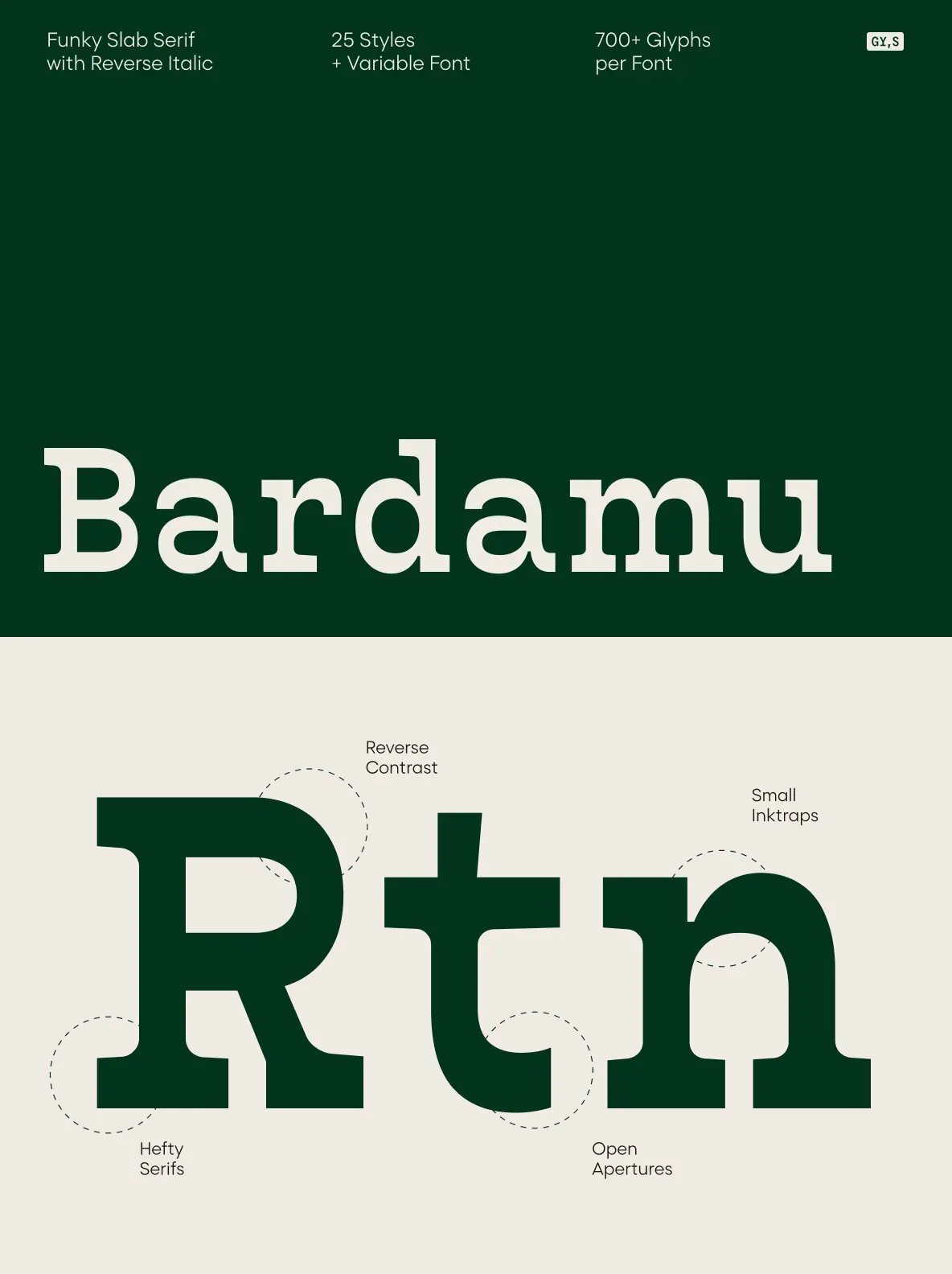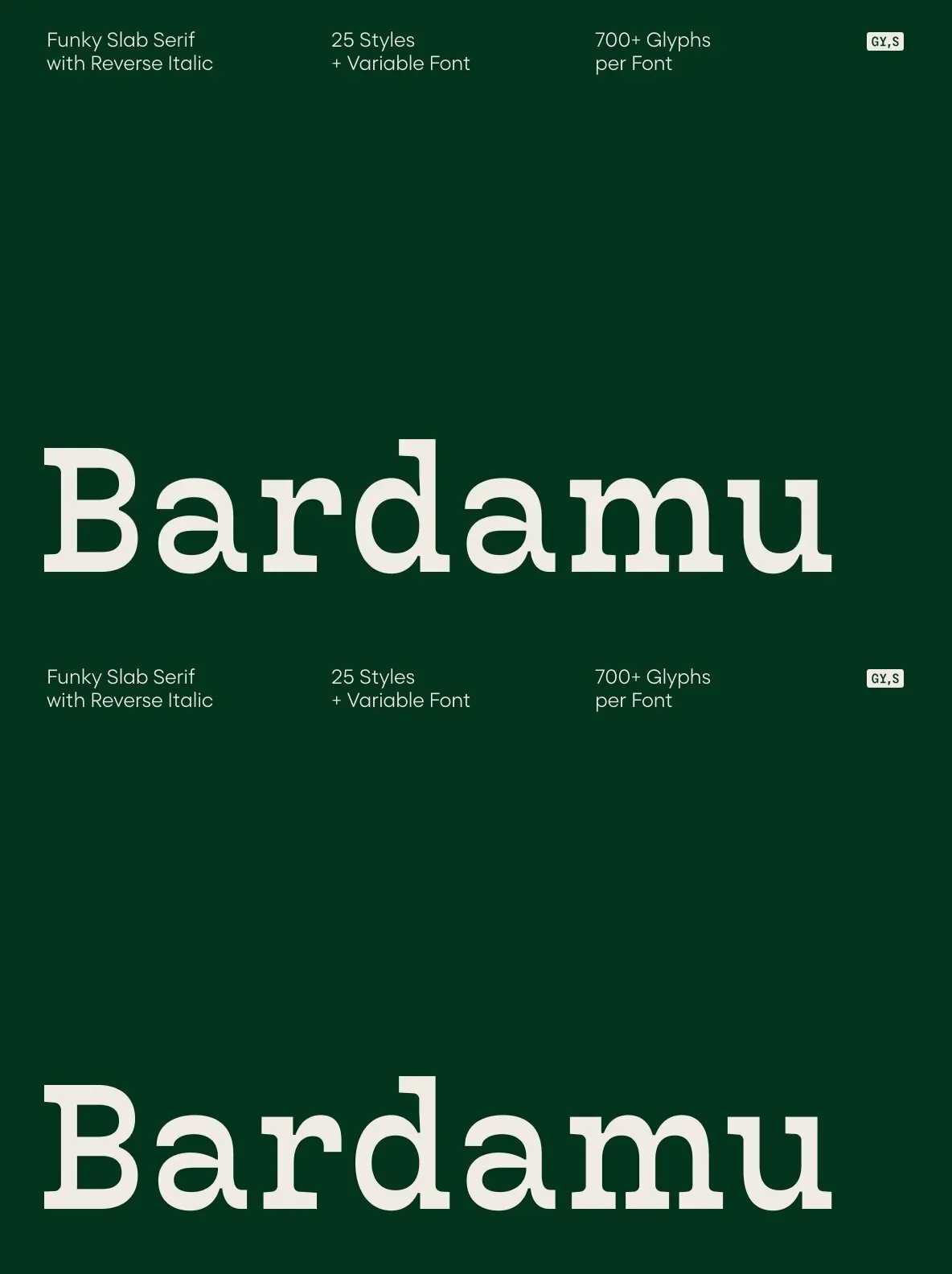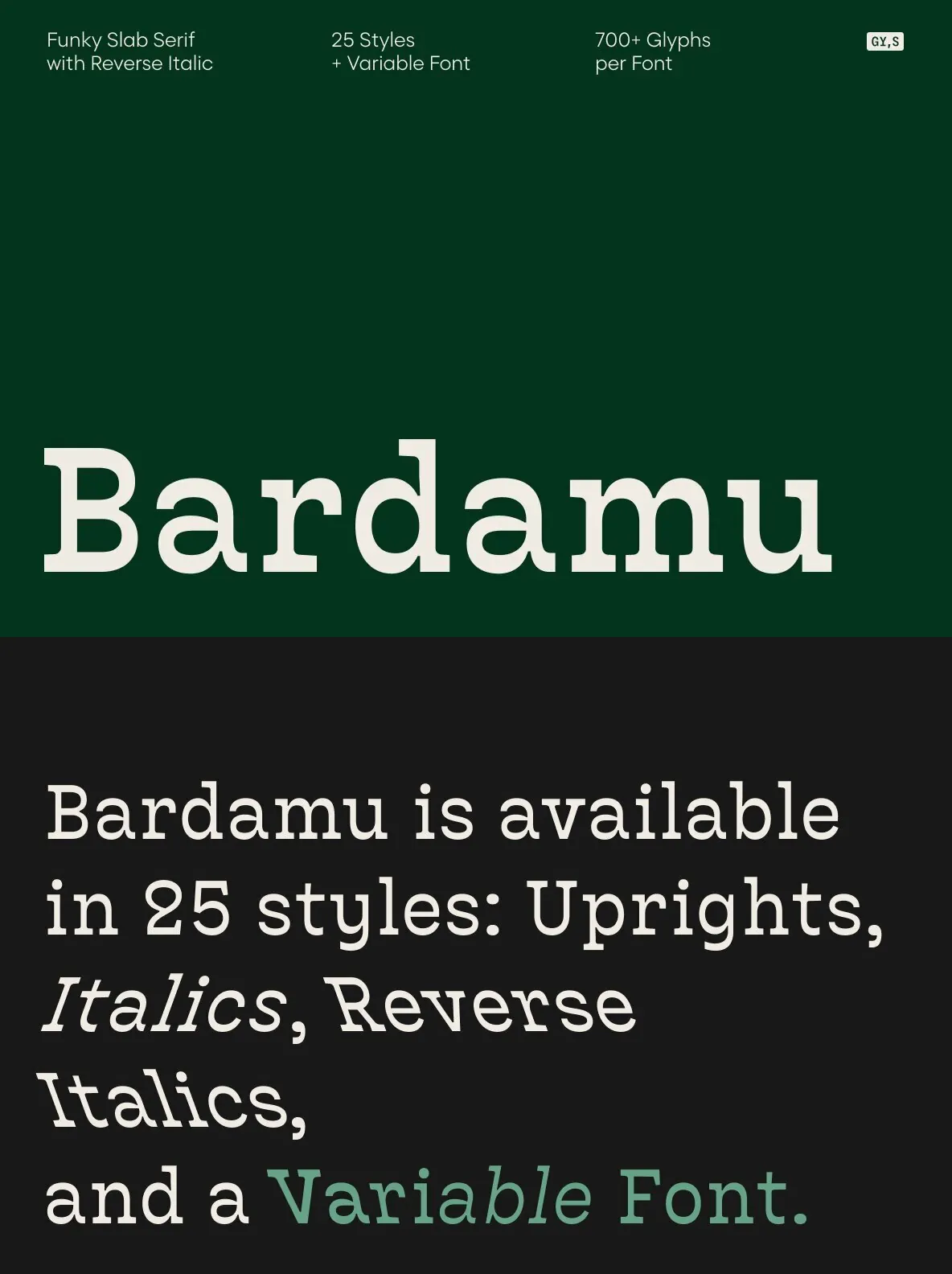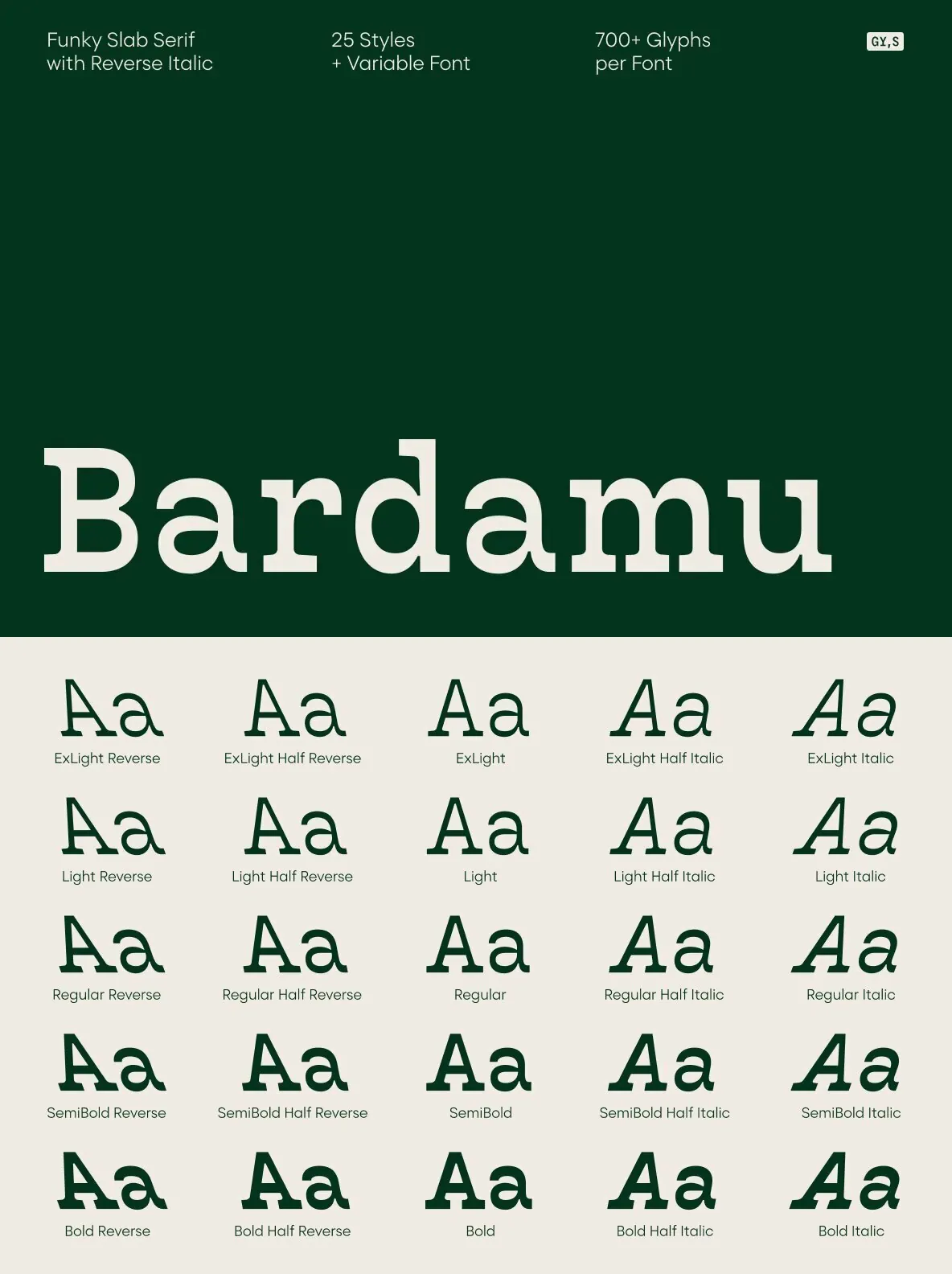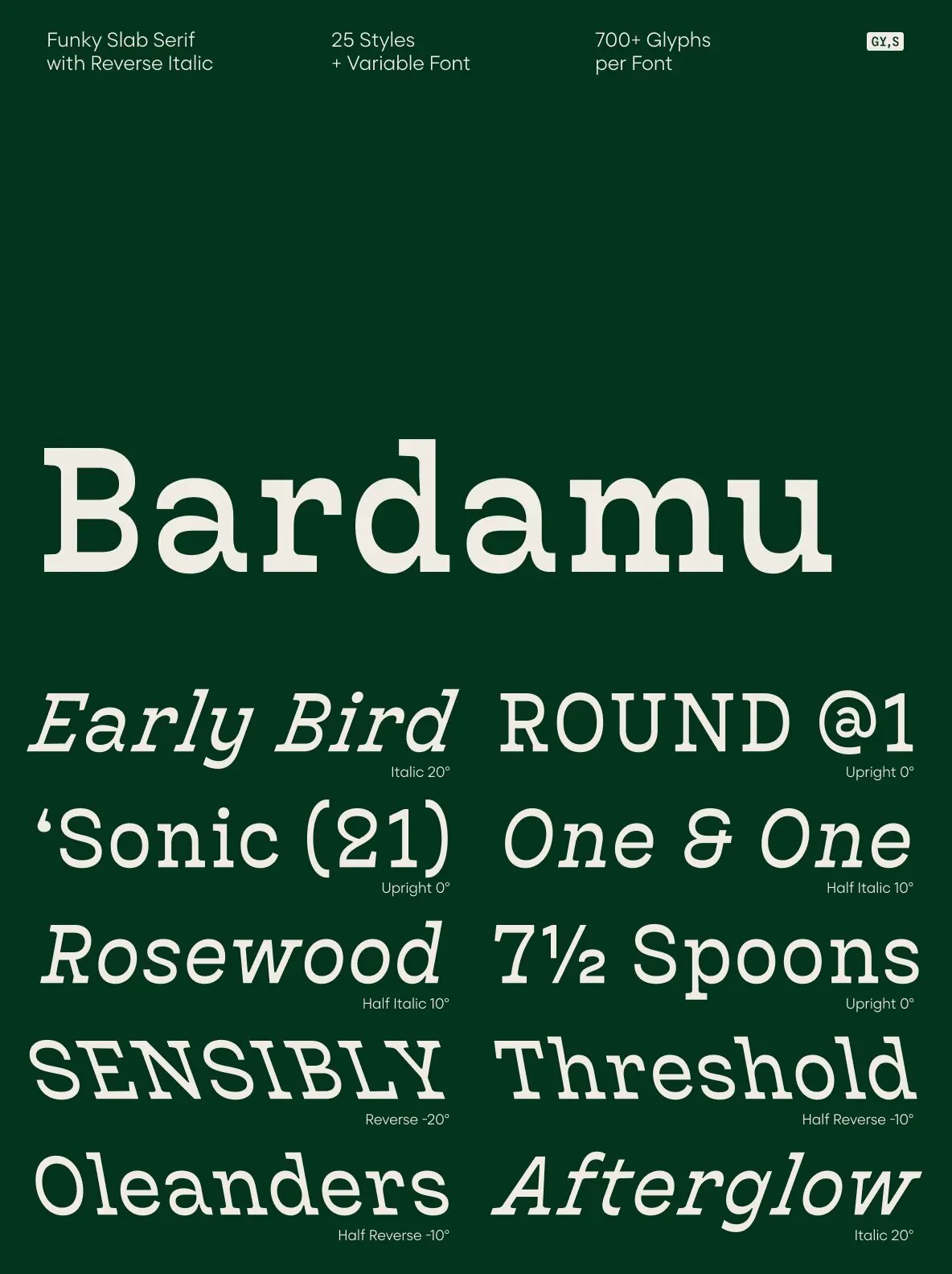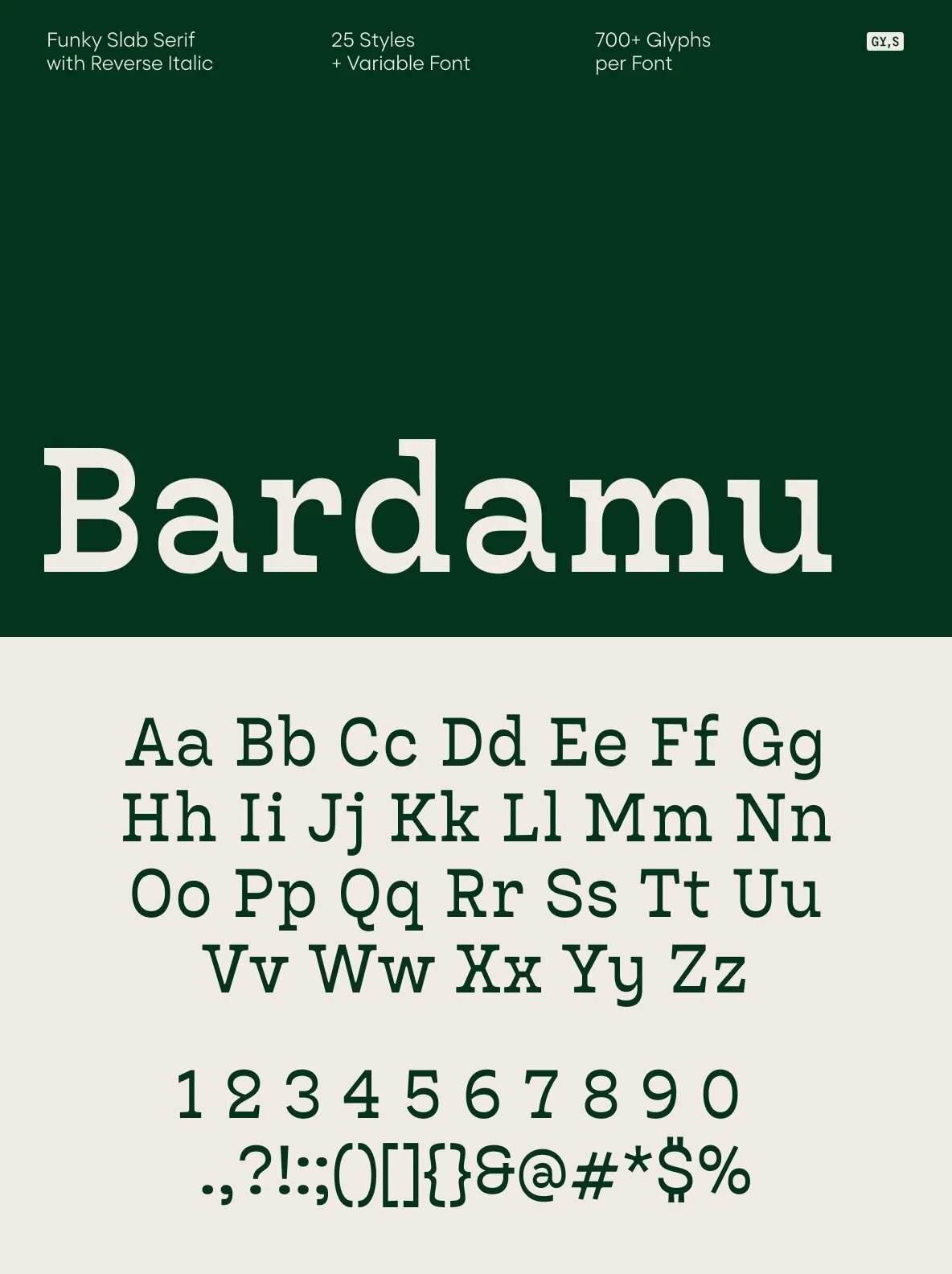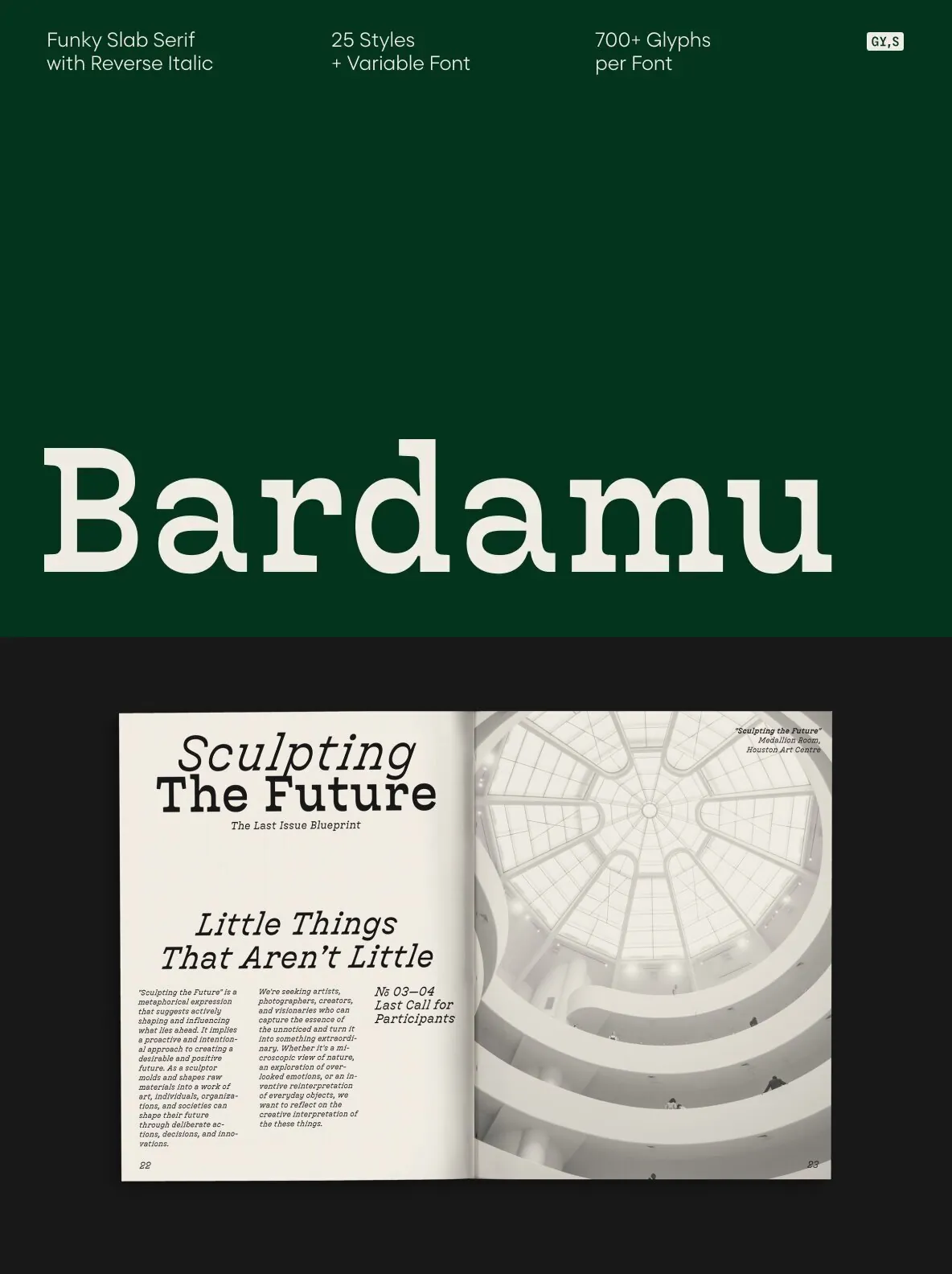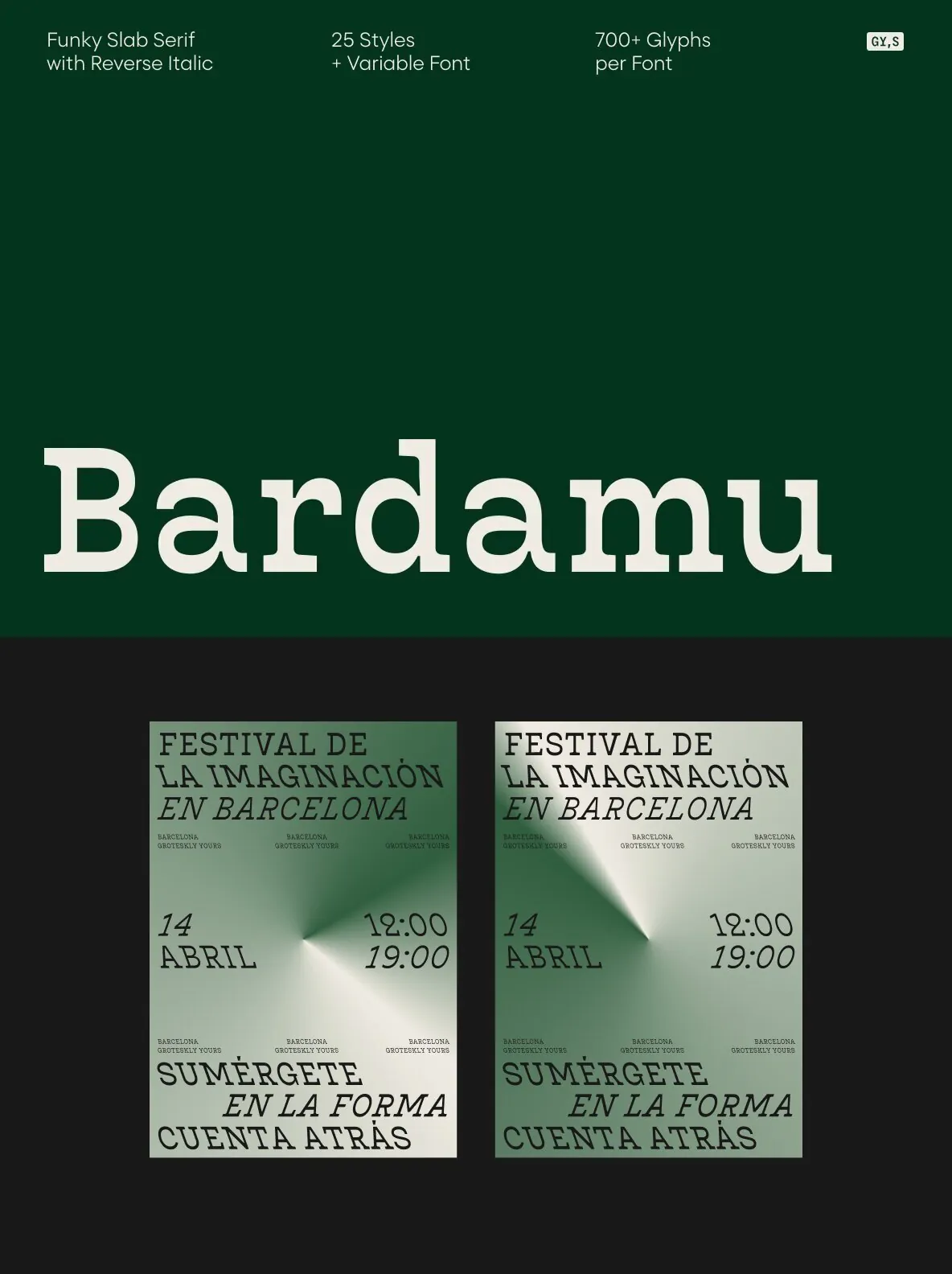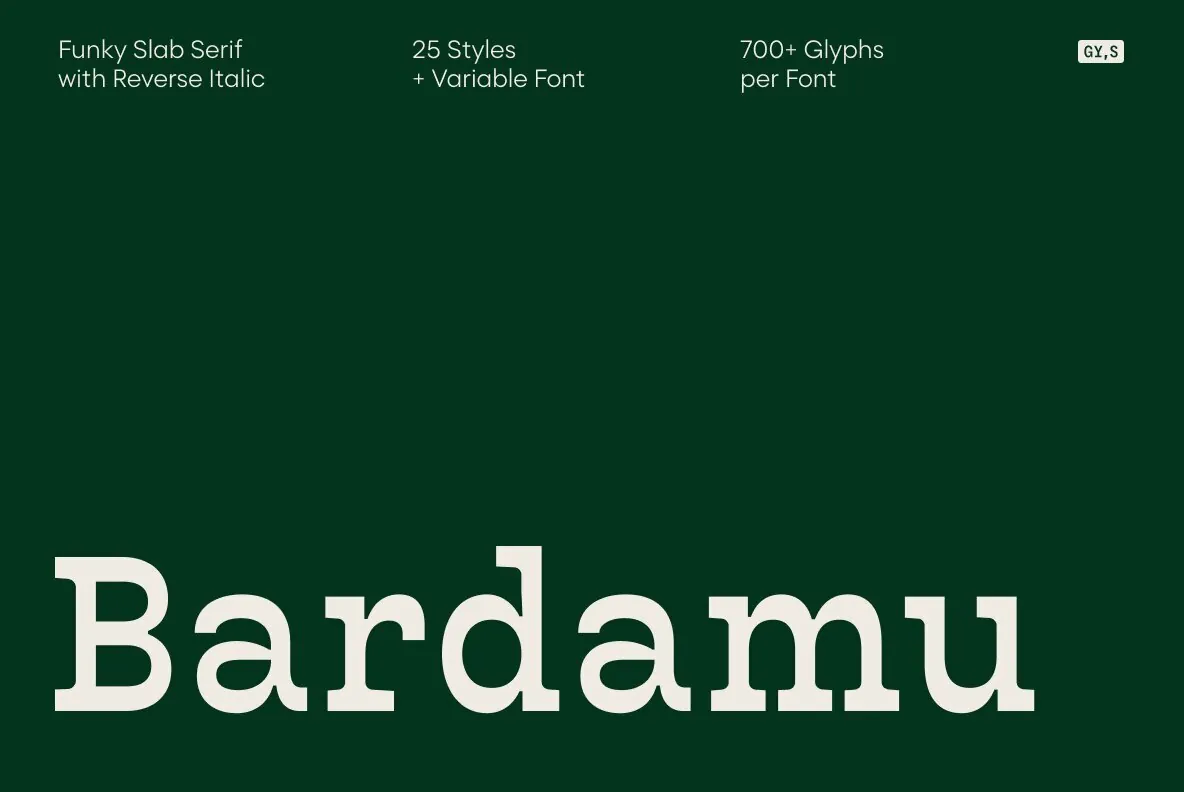
Bardamu — A Friendly Slab, Many Angles
Bardamu is a variable slab serif font family designed by Eugene Tantsurin and Anna Remm, and released by Groteskly Yours Studio. It is open to interpretation and experimentation, yet its ambiguity never hides its inherent friendliness and good vibes. Bardamu fits comfortably across graphic design, branding, web design, and editorial design. Its distinctive letterforms and confident design choices help add a clear, memorable finish—especially when you need a display slab serif that still feels approachable.
One of Bardamu’s standout qualities is its versatility. Bardamu comes in 25 styles, ranging from sleek backward-slanted italics at -20° to elegant upright styles, as well as regular 20° italics. For static fonts, two extra subfamilies are available (10° Half Italic and 10° Half Reverse) for more complex hierarchy in text. With a total of 25 static styles and 1 Variable font, Bardamu is a workhorse display slab serif with broad typesetting capabilities. Each font includes an extensive 700+ character set covering major Latin-based languages, punctuation, symbols, and supplementary characters.
Bardamu also includes OpenType features such as Case-Sensitive Punctuation, Stylistic Alternates, Sub- and Superscript, Tabular Figures, and Localised Forms, plus multiple stylistic sets to switch between glyph versions. The family includes 25 static styles as well as a variable font. All styles can be purchased separately or as a full family package. Two styles can be downloaded free of charge, and free trials are available upon request—feel free to reach out.